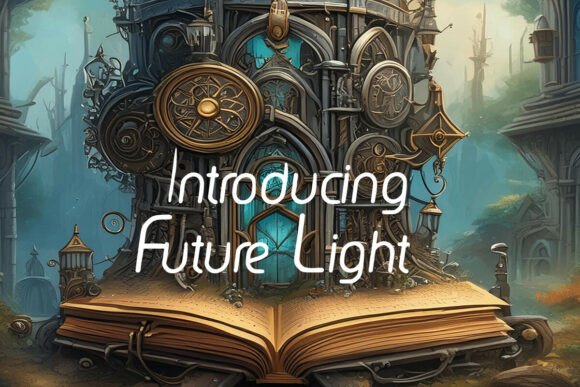
Introducing Future Light Font: Elevate Your Designs with Timeless Elegance
In the realm of typography, few fonts manage to strike a balance between modernity and timelessness. Future Light Font is one such exceptional typeface that embodies the essence of elegant minimalism, making it a versatile choice for a myriad of design applications. Whether you’re working on a t-shirt design, sticker creation, branding, magazine layouts, or even Cricut projects, Future Light is poised to become your go-to font for adding a touch of sophistication and contemporary flair.
The Essence of Future Light Font
Future Light is more than just a font; it’s a design statement. Its sleek lines and minimalist aesthetic make it an ideal choice for designers looking to infuse their work with a modern edge. The beauty of Future Light lies in its simplicity and the powerful impact it can have on a design. It’s a font that doesn’t overpower the content but rather elevates it, making your message clear and compelling.
Versatility at Its Best
One of the standout features of Future Light Font is its incredible versatility. It’s a typeface that can seamlessly transition across various mediums and design applications. Here are some ways you can use Future Light to enhance your designs:
- T-Shirt Designs: Give your apparel a stylish upgrade with Future Light. Its clean and modern look makes it perfect for statement tees or subtle branding.
- Sticker Creations: Add a touch of elegance to your stickers, making them stand out with a sophisticated yet understated look.
- Branding: Elevate your brand’s visual identity with a font that communicates modernity and elegance.
- Magazine Layouts: Bring a contemporary feel to your magazine designs, making them more engaging and visually appealing.
- SVG Files and Greeting Cards: Add a sleek sophistication to your digital and printables, making them more special.
- Cricut Projects: Take your craft projects to new heights with a font that offers both style and readability.
- Poster Designs and Social Media Graphics: Make your posters and social media content more compelling with a modern and elegant typeface.
The Future of Typography
Future Light Font is not just a fleeting trend in the world of typography; it’s a forward-thinking design that redefines what dynamic and contemporary typography can look like. In an era where design trends evolve rapidly, Future Light stands out as a timeless choice that can adapt to various styles and trends. Its clean lines, elegant minimalism, and versatile nature make it a valuable asset for designers looking to create impactful and lasting impressions.
Why Choose Future Light?
Choosing Future Light Font for your design projects comes with numerous benefits:
- Universal Appeal: Its minimalist yet modern design appeals to a wide audience, making it suitable for projects aimed at diverse demographics.
- Readability: Despite its sleek and thin appearance, Future Light maintains excellent readability, ensuring your message is conveyed clearly.
- Customization: Being a versatile font, Future Light can be easily customized to fit various design needs, from adjusting the size to experimenting with different colors and textures.
- Timelessness: Unlike trendy fonts that may quickly become outdated, Future Light offers a timeless quality that can stand the test of time.
Future Light Font is a remarkable addition to the world of typography, offering a perfect blend of elegance, minimalism, and modernity. Its versatility and timeless appeal make it an excellent choice for a wide range of design applications. Whether you’re a professional designer looking to elevate your projects or a hobbyist seeking a stylish and readable font, Future Light is sure to meet and exceed your expectations. Embrace the future of typography with Future Light and discover how this elegant, minimalist font can transform your designs into visually stunning and impactful creations.
- Choosing the Right Size: Depending on your project, you may want to experiment with different sizes of Future Light to find the perfect balance between style and readability.
- Experimenting with Styles: Although Future Light is a minimalist font, you can still play around with different colors, textures, and design elements to create a unique look.
- Pairing with Other Fonts: For projects that require multiple fonts, experiment with pairing Future Light with complementary typefaces to enhance visual interest.